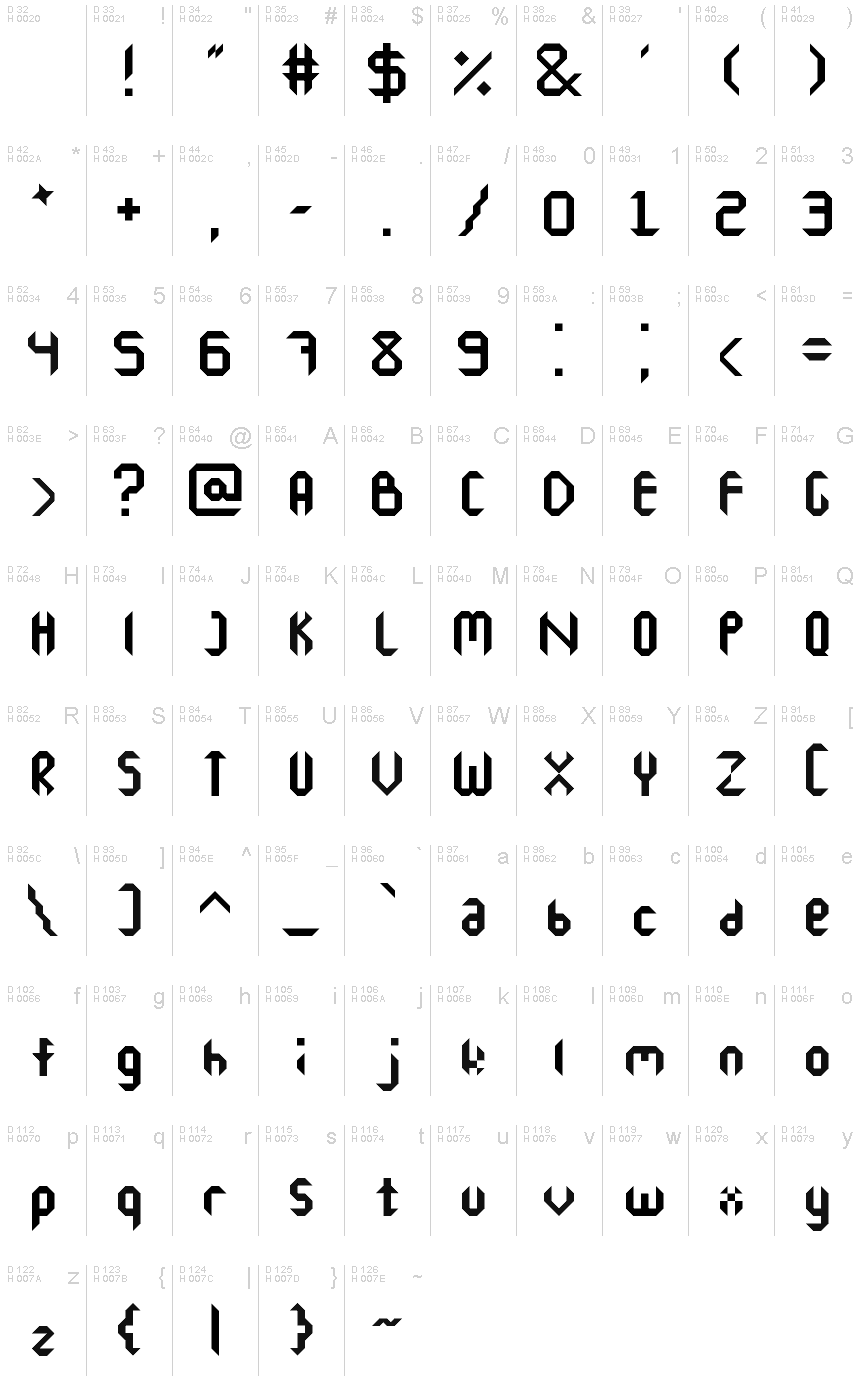
Octagon Regular
Octagon is a striking, techno-inspired font that exudes a bold, futuristic aesthetic. Characterized by its sharp, condensed letter forms and geometric angles, this display typeface commands attention with its sleek, minimalist design. The font's distinctive octagonal shapes lend it a unique, industrial-inspired flair, making it a versatile choice for a range of design applications, from branding and packaging to digital interfaces and event materials.
Octagon's clean, legible lines and high-contrast strokes seamlessly blend form and function, allowing it to function as both a stylistic statement and a practical typographic solution.